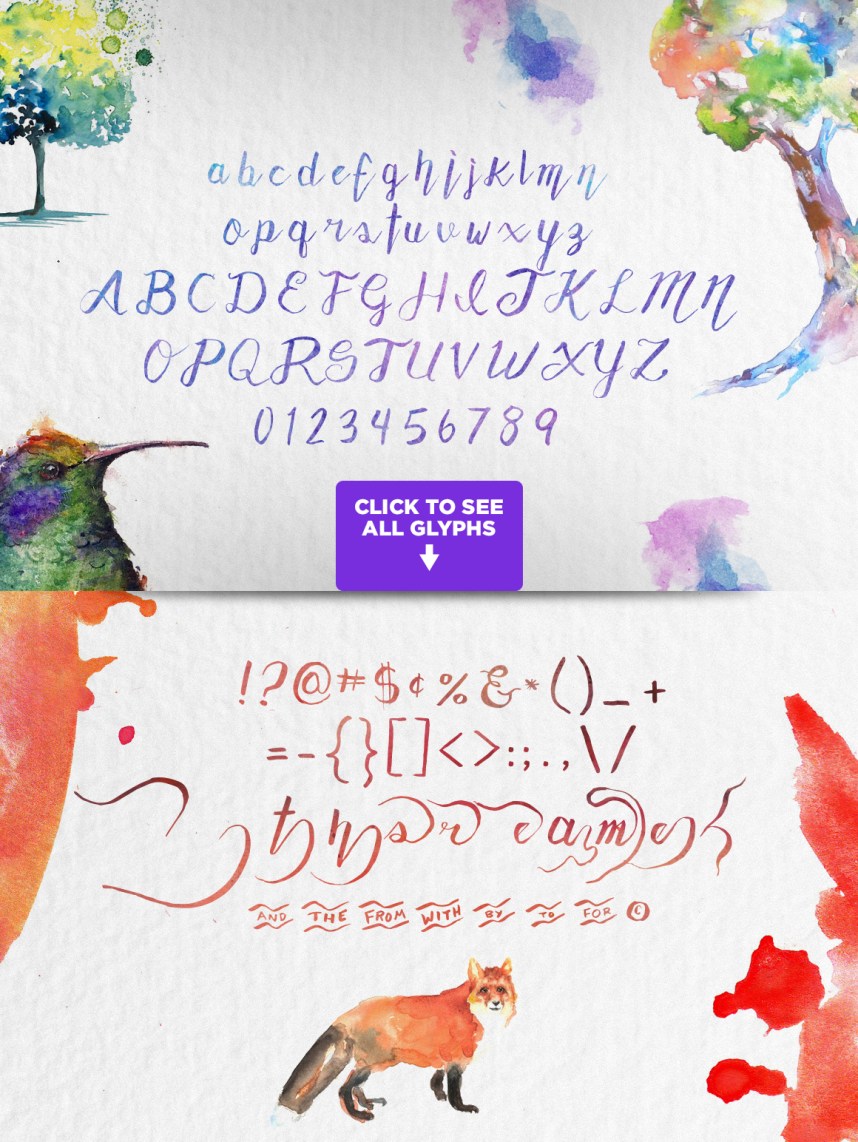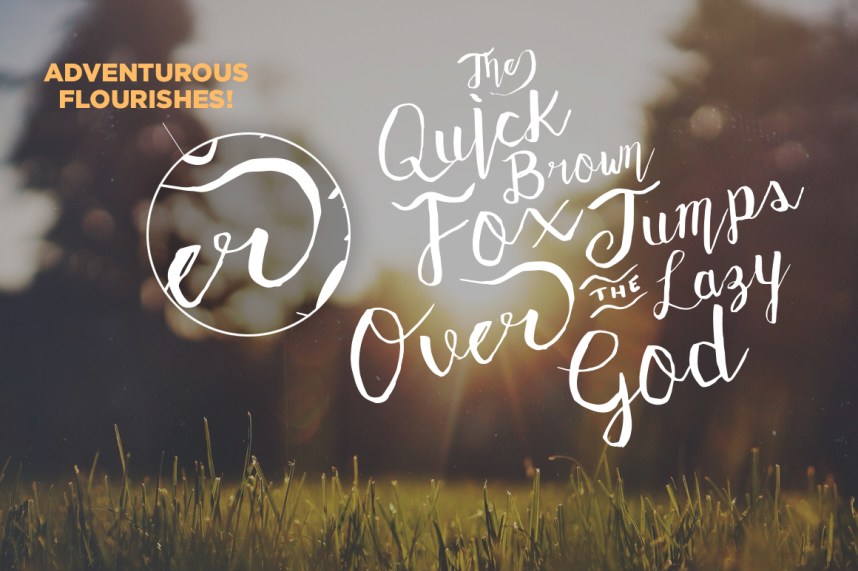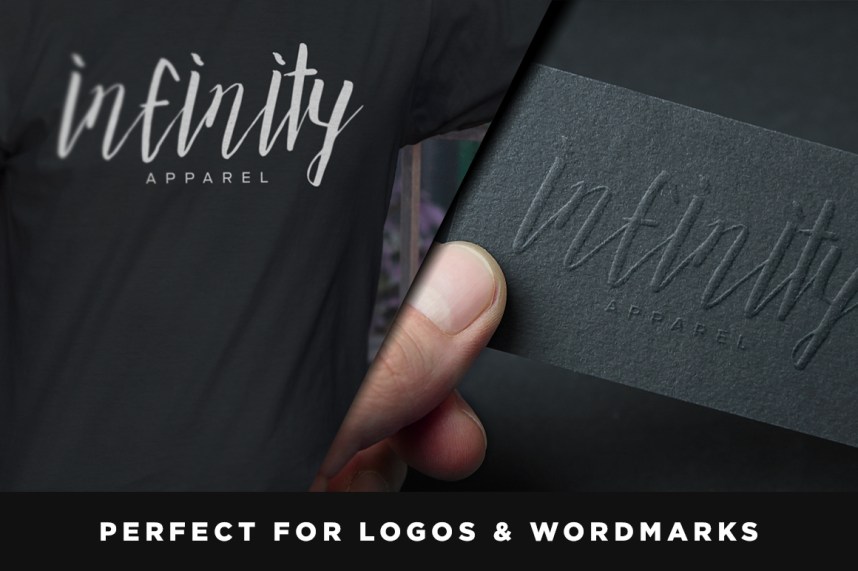
Adventurous Script Font
Adventurous Script is a hand written script, written with a brush pen. Ideal for logos, name tag, handwritten quotes, product packaging, merchandise, social media & greeting cards. It contains a full set of lower & uppercase letters, a large range of punctuation, numerals, and multilingual support.